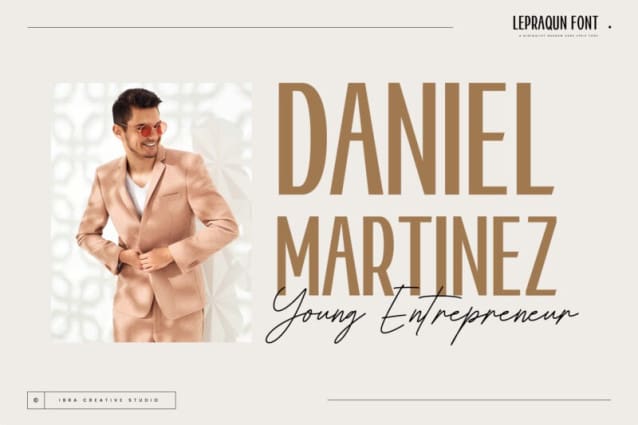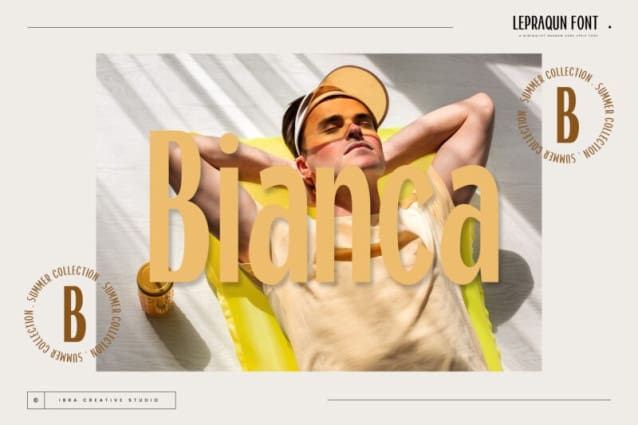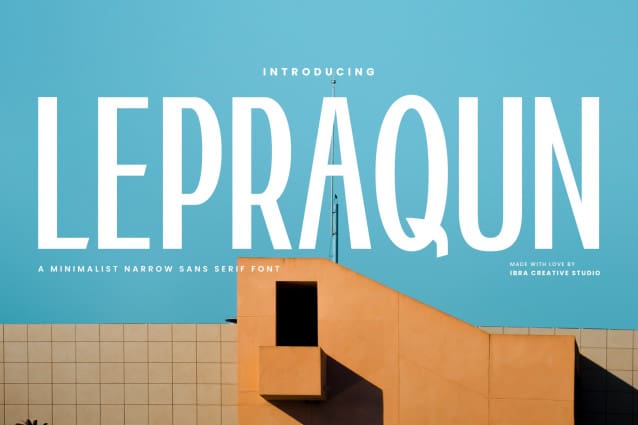
Lepraqun Font
Lepraqun Font, a minimalist narrow sans-serif font, epitomizes simplicity and modern sophistication. With its slender letterforms and clean lines, Lepraqun embodies a sleek aesthetic that is both contemporary and timeless. This typeface offers a refined and space-efficient design, making it an ideal choice for projects that demand a sleek, minimalist appearance without sacrificing readability. The precise and balanced proportions of Lepraqun contribute to its versatility, allowing it to seamlessly integrate into various design contexts, from branding to editorial layouts. Lepraqun stands as a testament to the power of minimalism in typography, providing a stylish and efficient solution for those seeking a clean and sophisticated visual identity.
Lepraqun Font is perfect for branding projects, logo, wedding designs, social media posts, advertisements, product packaging, product designs, label, photography, watermark, invitation, stationery, game, fashion and any projects.